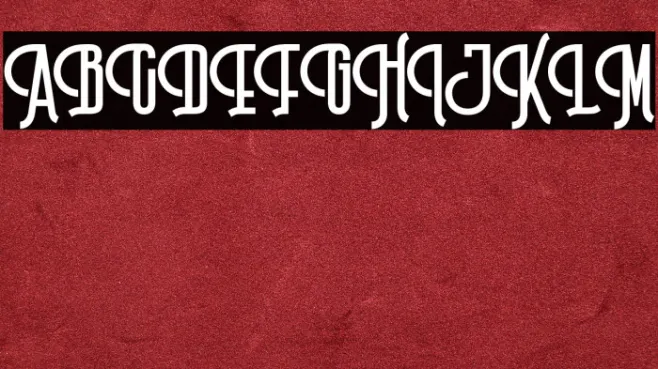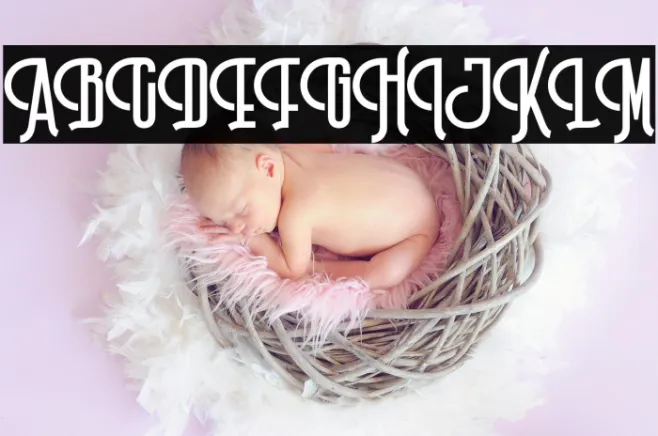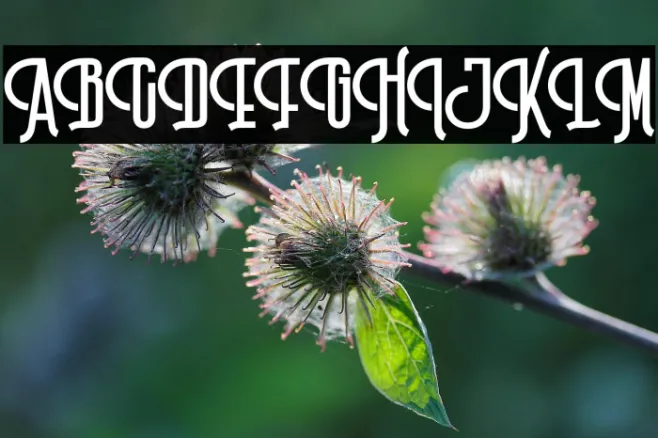
BillrocksDEMO Font
This font features a unique blend of modern and decorative styles, characterized by its bold and striking uppercase letters. The uppercase letters have an ornamental flair, with intricate curves and sharp angles that give them a distinctive appearance. The lowercase letters are more straightforward, maintaining a clean and consistent line weight. The numerals and special characters complement the overall style, offering a cohesive look across all glyphs. The font's design is both eye-catching and versatile, making it suitable for various creative applications.
A bold, decorative font with intricate uppercase and clean lowercase letters.
- Font: BillrocksDEMO
- Proposed Projects: Ideal for branding, poster design, and headlines that require a strong visual impact.
- Overall Style: Modern Decorative